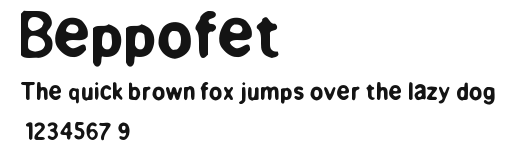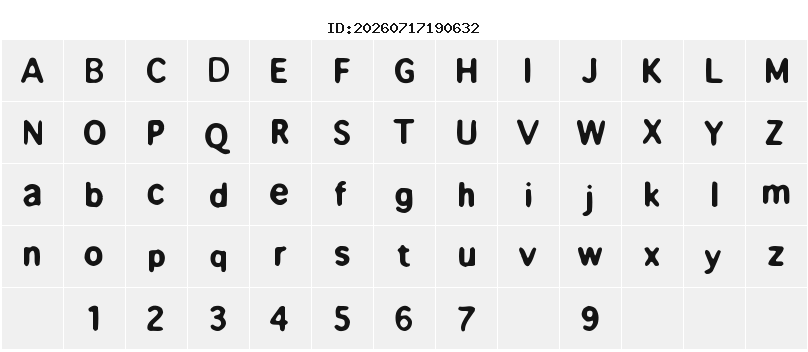
About Beppofet.ttf
Beppofet.ttf is a modern, elegant sans-serif font designed for ultimate readability and visual harmony. Perfect for branding, headlines, web design, and print materials.